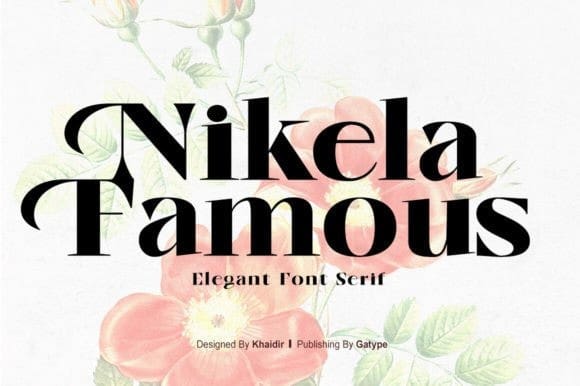
Nikela Famous Font
Nikela Famous Font, is a bold and assertive serif font. No matter the topic, this font will be an incredible asset to your fonts’ library, as it has the potential to elevate any creation.